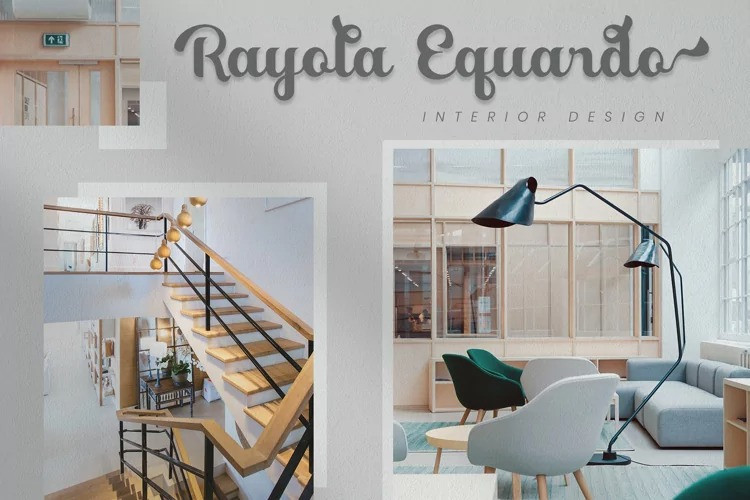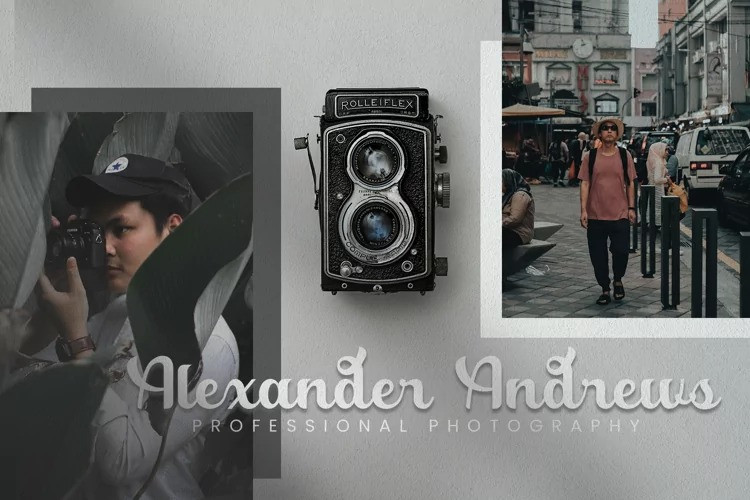
Baltimore Bold Script Font
It’s a bold 70’s script font, with a curvy bold stroke, uprights and fun character. It will add a luxury spark to any design project that you wish to create! This font is PUA encoded which means you can access all of the amazing glyphs and ligatures with ease!